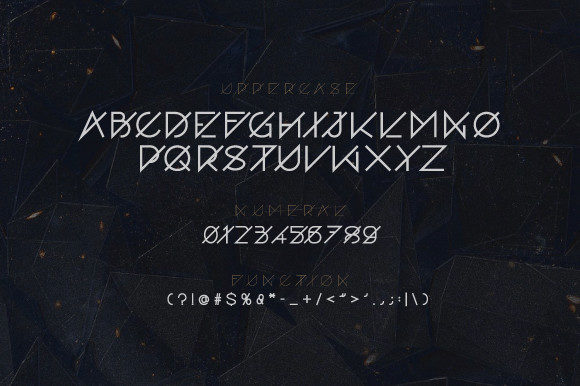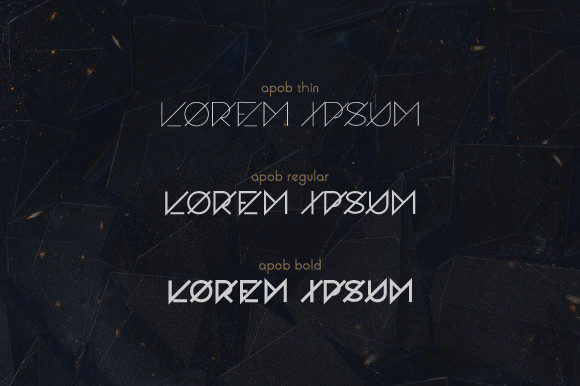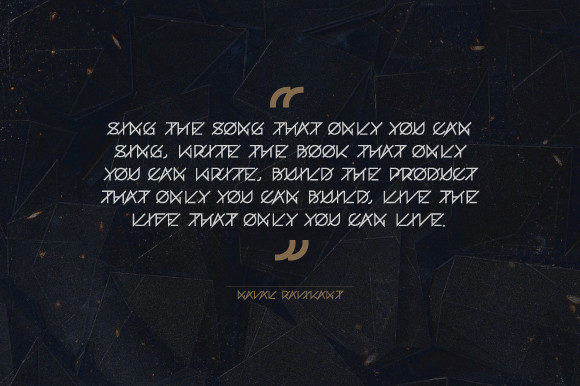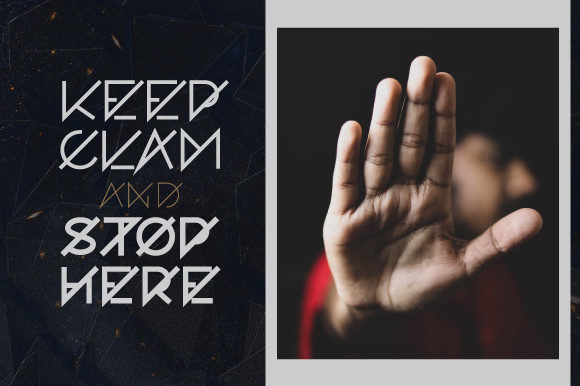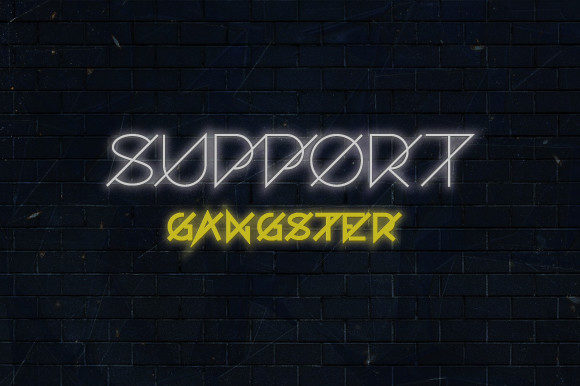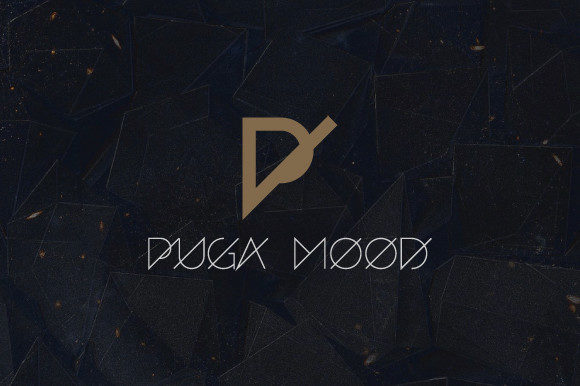
The Moment of Inspiration
Have you ever been stuck in a creative rut, staring at a blank screen or a blank piece of paper, waiting for that spark of inspiration to strike? We’ve all been there. But sometimes, all it takes is one small spark to set off a chain reaction of creativity. For designers, that spark can come in the form of a new font, one that adds a unique touch to their work and sets it apart from the rest.
Enter the Apob Font, a modern and futuristic display font designed to make a statement. Whether you’re working on a web design, a business card, or any other project that requires a bit of flair, the Apob Font is the perfect addition to your toolkit. With its sleek lines and futuristic feel, this font is sure to add a touch of sophistication to any design project.
Apob Font Key Features
- Unique Characteristics: Apob Font features a distinctive, modern design with a mix of geometric and organic elements, making it suitable for contemporary branding, advertising, and editorial projects.
- Font Variations: The Apob Font family offers multiple font styles, including Regular, Bold, Italic, and Bold Italic, allowing designers to create visually appealing and nuanced typography.
Apob Font Review
As a designer, I was excited to dive into the Apob Font and see what it had to offer. Overall, I was pleasantly surprised by its clean and modern aesthetic. ✨
Here are some of the things that worked well for me:
- The font’s clean lines and simple shapes make it perfect for digital use, such as on websites and mobile apps.
- Its modern feel makes it a great choice for creative and innovative projects.
- The font’s weight and spacing are well-balanced, making it easy to read and understand.
- The font’s limited character set may not be suitable for projects that require a wide range of languages or special characters.
- The font may not be the best choice for projects that require a bold or dramatic feel.
- The font’s simplicity may make it feel too plain or uninteresting for some projects.
Overall, I think the Apob Font is a solid choice for designers who are looking for a clean and modern font for their projects. While it may not be perfect for every project, it’s a great option for those who want a simple and easy-to-read font.
Apob Font is ideal for creating unique and eye-catching titles and headings in Canva.
Apob Font is perfect for creating custom typography in Adobe Creative Cloud applications.
Apob Font is great for adding a touch of elegance and sophistication to your presentations and documents.
Apob Font is ideal for:
- Creating unique and eye-catching titles and headings.
- Adding a touch of elegance and sophistication to presentations and documents.
- Creating custom typography for branding and marketing materials.
Alternatives to Apob Font
Montserrat is a sans-serif font designed for digital media. It is highly legible and suitable for body text, headings, and titles. Montserrat is a great alternative to Apob Font when you need a clean and modern look. It has a similar geometric feel, but with a more open and airy design.
Open Sans is a modern sans-serif font that is highly readable and versatile. It is suitable for a wide range of applications, from body text to headings and titles. Open Sans is a great alternative to Apob Font when you need a friendly and approachable font. It has a similar neutral feel, but with a more rounded and approachable design.
Q: Can I customize Apob Font to fit my specific design needs?
Yes, as a variable font, Apob Font allows for real-time customization of font weights, styles, and other design parameters. You can use font editors or design software that support variable fonts to experiment with different settings and create unique styles tailored to your project’s requirements.